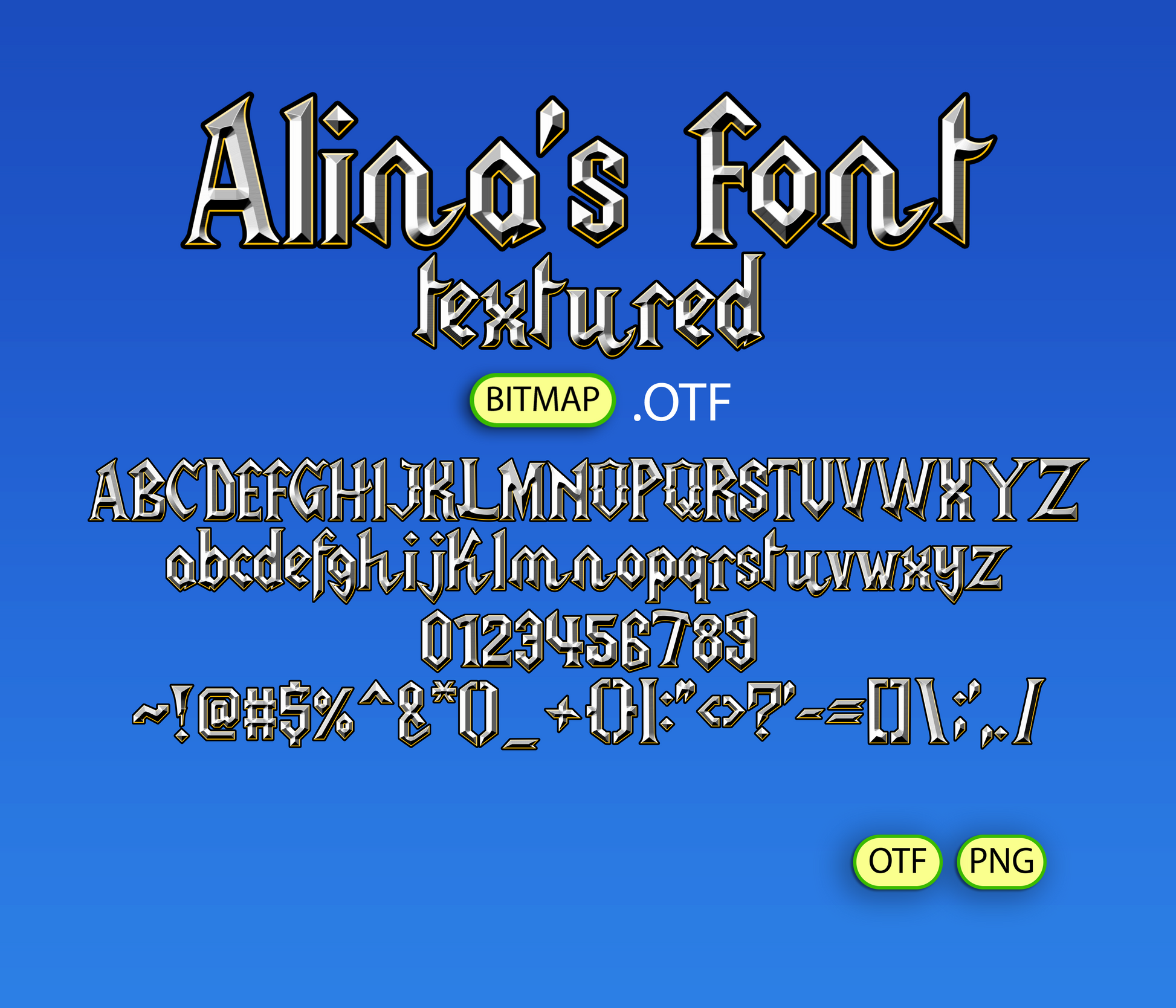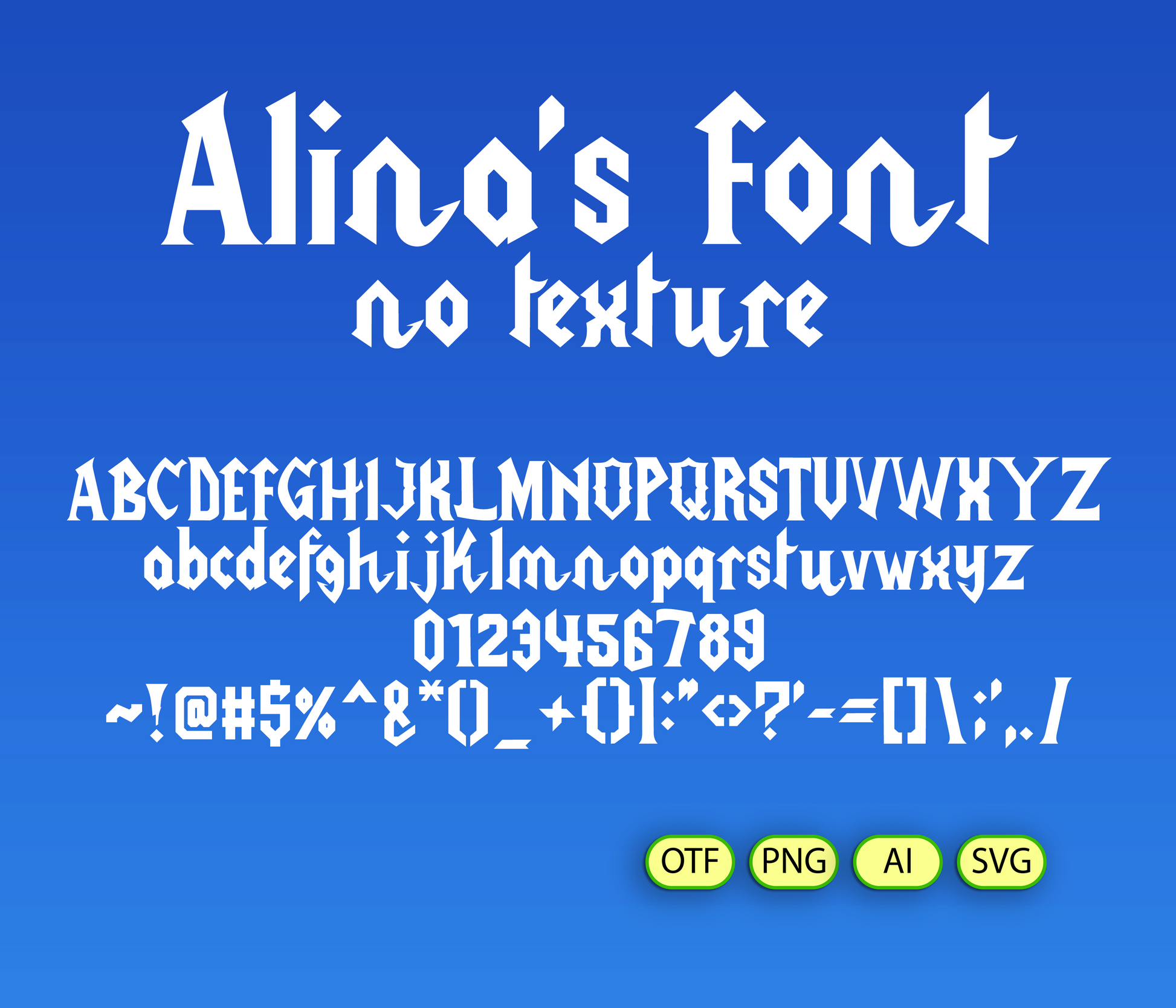
Duel Masters Adventure Font Textured
Step into the thrilling world of strategic card battles and epic duels with our Duel Masters Adventure Font, capturing the essence of high-stakes gameplay and the excitement of a beloved card game universe. Perfect for fans of animated adventures, card game enthusiasts, comic creators, event organizers, and designers, this font brings the dynamic, energetic spirit of card dueling to your projects. Create themed materials, merchandise, or digital content with the bold, adventurous vibe of this iconic world.
What Font is Duel Masters Adventure Font?
The Duel Masters Adventure Font is a blend of bold, geometric shapes and easy-to-read letters. It includes uppercase and lowercase letters, numbers, and special characters, making it a versatile choice for a wide range of creative projects. Perfect for crafting, this font is your go-to for designing game-themed posters, event invitations, trading card designs, and more. It’s like having a piece of the card-dueling world right on your computer! With the Duel Masters Adventure Font, your projects will resonate with the adventurous spirit and striking aesthetics of a universe filled with strategy and excitement. This font is your golden ticket to making everyday designs feel a bit more extraordinary.
What Can You Do With Duel Masters Adventure Font?
Fans everywhere will enjoy using this font for personal projects and more to express their love for an amazing card game universe. Find below some things you can do with Duel Masters Adventure Font:
- Design game-themed activities for kids in your classroom or at home
- Create a birthday card filled with the excitement of card duels
- Make banners and signs for home decor that echo the adventurous spirit of gameplay
- Throw a themed game night or birthday party
- Add decorations and style to a scrapbook, capturing the thrill of strategic battles
- Develop a themed scavenger hunt for fans of the game
- Use with your Cricut to craft unique card-inspired creations
- Create a themed stencil for imaginative art projects
- Design engaging labels and tags for game-related merchandise
- Craft personalized storytelling kits for kids inspired by card duels
- Make themed event invitations that spark excitement and curiosity
Yes, there’s a no-textured version of the Duel Masters Adventure Font available within the package. While the textured and colored font option immerses you in the vibrant world of card duels, we also offer a simple, black font version at no additional cost. This sleek and clean variant is freely available within the package, ready to be utilized in your various design adventures. This font is the best Duel Masters Adventure Font for Cricut or cutting machines! Download now and let your imagination run wild with the diverse font styles awaiting you in the Duel Masters Adventure Font Textured!